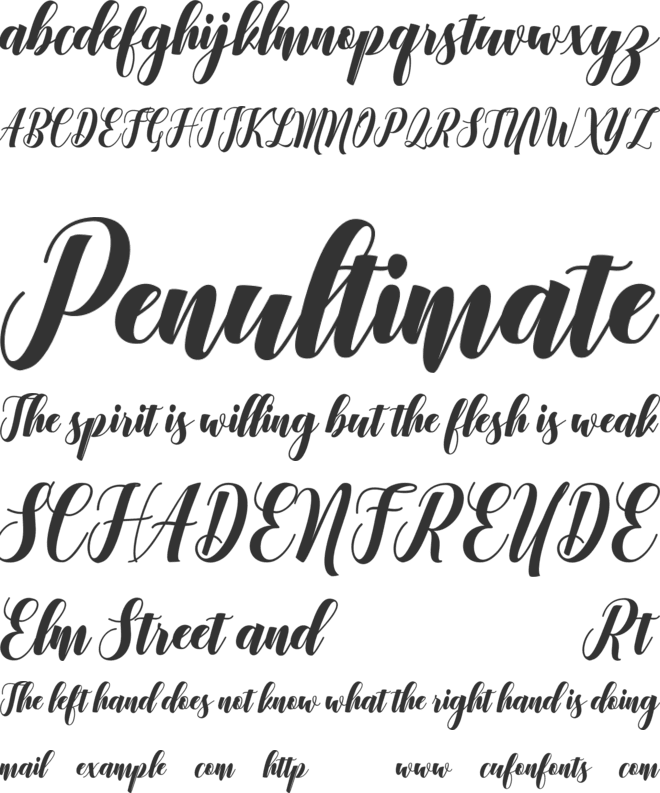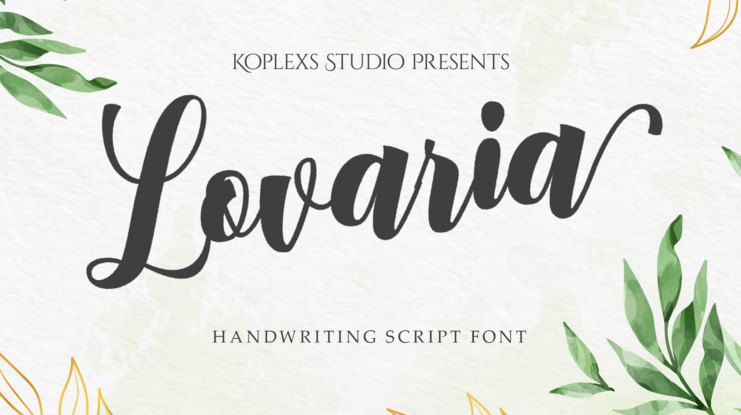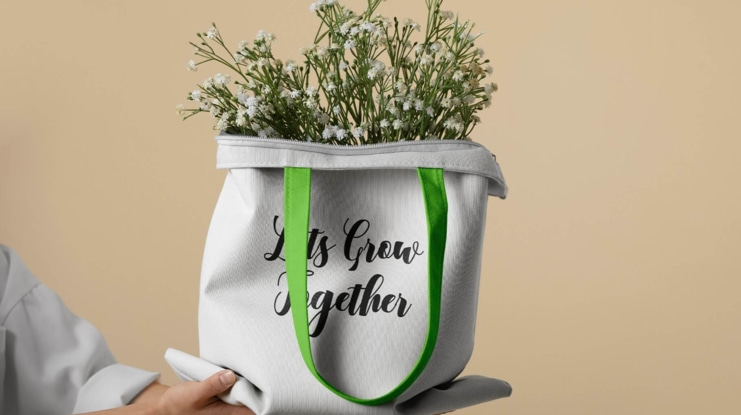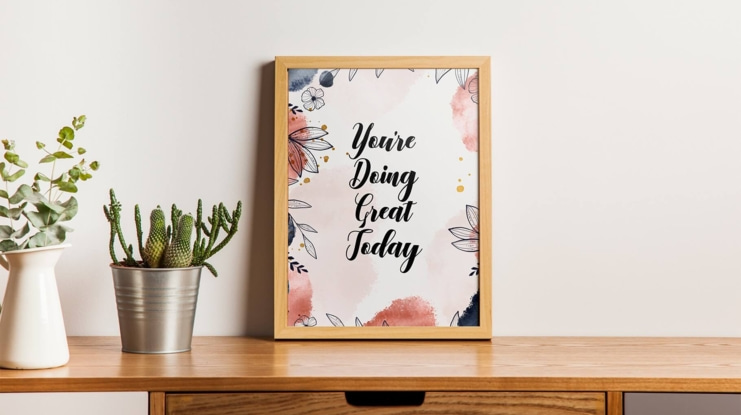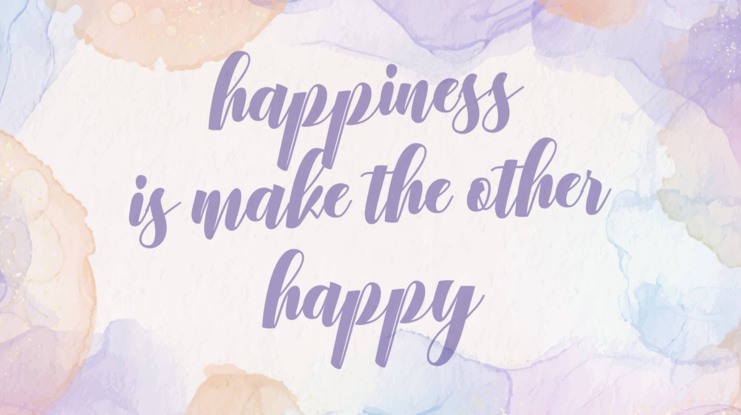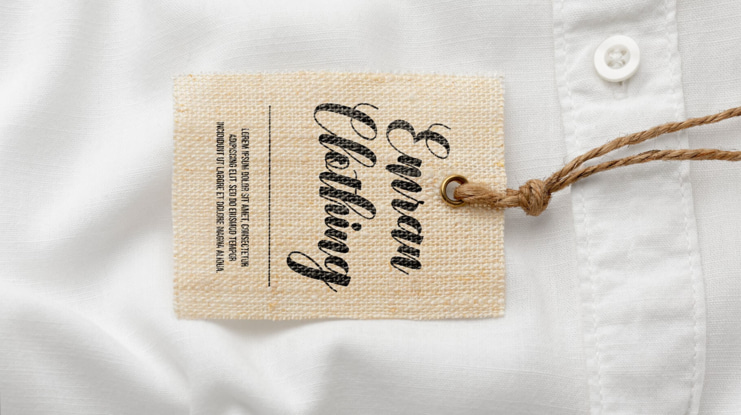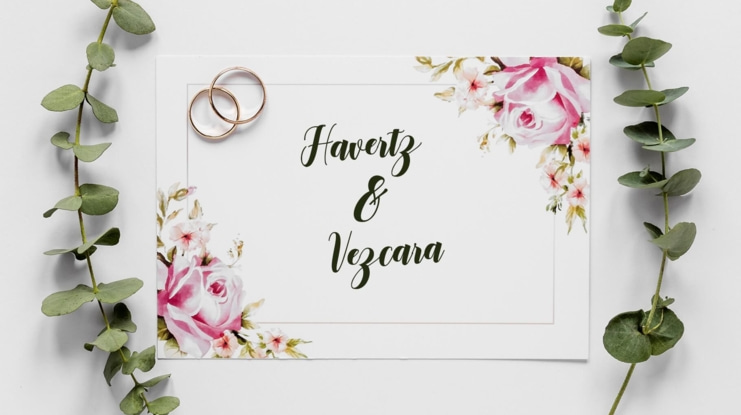
Lovaria Font is an elegant Handwritten Script Font designed with smooth calligraphy strokes and a luxurious cursive flow. Crafted for designers who value style and sophistication, this typeface blends the charm of a Signature Font with the refinement of a Calligraphy Font, making it a perfect choice for branding, weddings, and premium visual identities. Its modern aesthetic and graceful curves ensure your designs stand out with timeless beauty.
This versatile typeface works flawlessly as a wedding font, branding font, logo font, cosmetic font, aesthetic font, elegant font, and luxury font. Whether you're creating invitations, packaging, social media graphics, or high-end brand identities, Lovaria Font delivers a polished and professional look. Its balanced readability and expressive style make it an essential addition to any designer’s modern font collection.